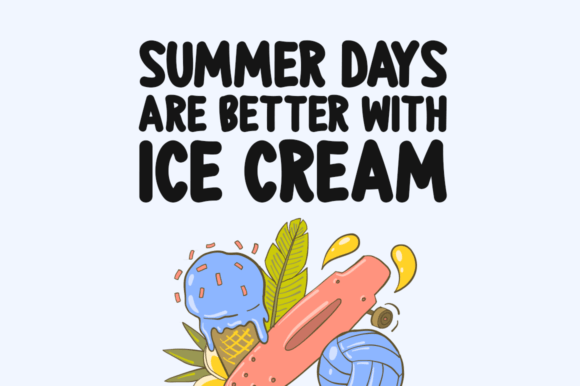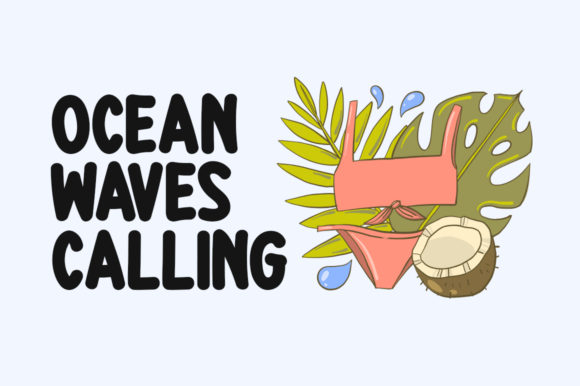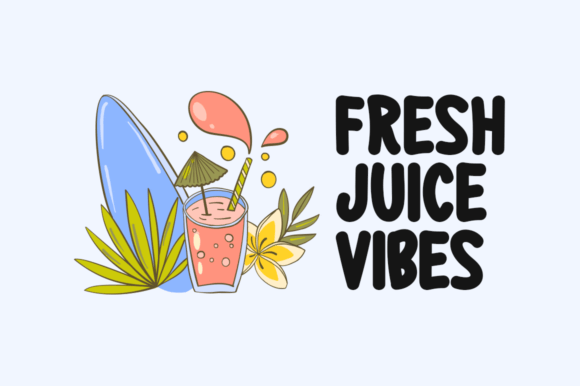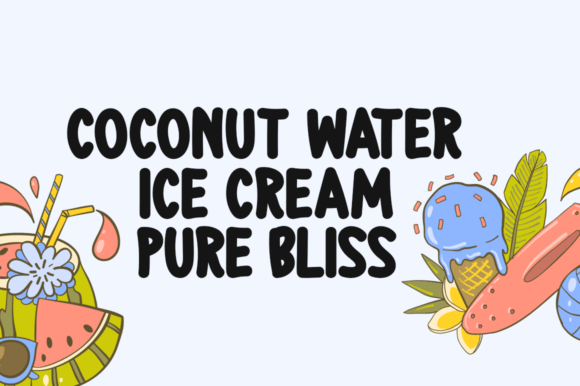
The Endless Summer Font: Elevate Your Designs with Elegance and Creativity
I’ll never forget the design project that had me stuck in a font rut. I was working on a branding campaign for a trendy boutique hotel, and I needed a typeface that exuded elegance, sophistication, and a dash of playfulness. Hours of scrolling through font libraries, and I still couldn’t find the perfect fit. That’s when I stumbled upon the Endless Summer font, and it was love at first sight! 💕
The Endless Summer font has become a staple in my design toolkit, and here’s why:
- ✨ Unique, handwritten style that adds a touch of personality to any project
- 💫 Supports OpenType features, glyphs, and stylistic alternates for added versatility
- 🎨 Works beautifully in a variety of design applications, from print to digital
While the Endless Summer font is incredibly versatile, there are a few quirks to keep in mind:
- ⚠️ Some users have reported issues with kerning on certain letter combinations – a minor tweak might be needed for optimal results
- 🤔 Limited availability of language support, so double-check compatibility before use
The Story Behind Endless Summer: Designer Inspiration
The Endless Summer font was crafted with a passion for elegance and creativity. The designer, inspired by the carefree spirit of summer, aimed to create a typeface that captures the essence of a sun-kissed afternoon. With its flowing lines and sophisticated style, Endless Summer is the perfect font for designers seeking to add a touch of warmth and personality to their projects.
Q: What type of projects is the Endless Summer font best suited for?
A: The Endless Summer font is ideal for a wide range of projects, including stationery, branding materials, apparel designs, prints, web elements, photo displays, promotional flyers, album covers, posters, and digital sliders.